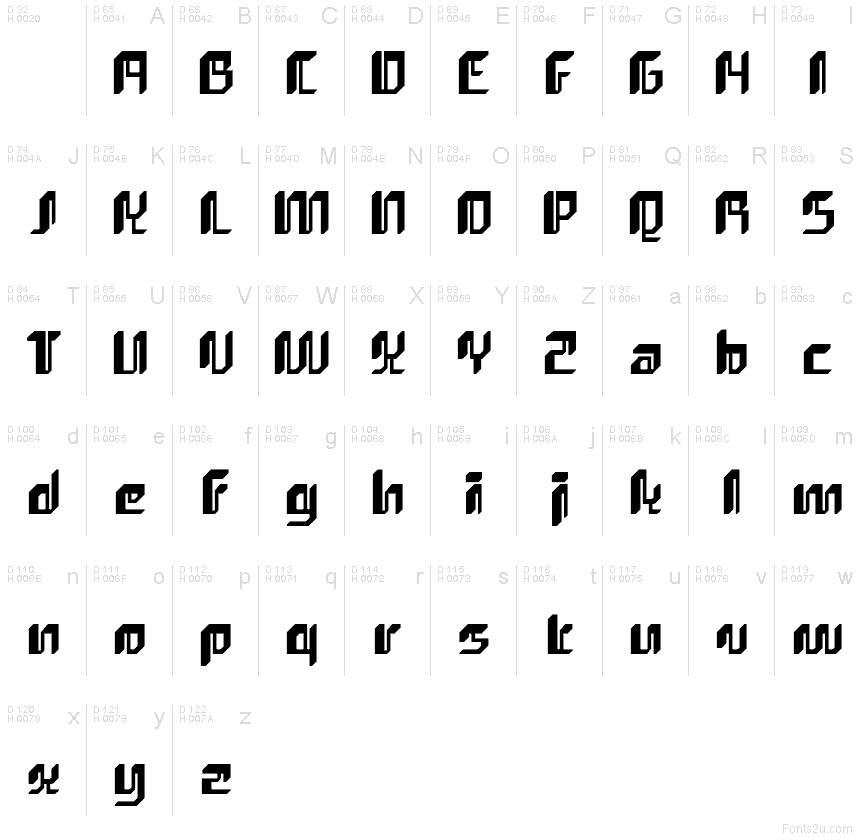
CS Axiome Regular Demo
CS Axiome font by Craft Supply Co. is a techno 3D display font with a futuristic, geometric style that grabs attention. With minimalistic characters, CS Axiome’s mechanical structure gives uniformity to all fonts with sharp lines and angles. Explore new dimensions and come aboard the design world trip of tomorrow with this artist’s newest piece.